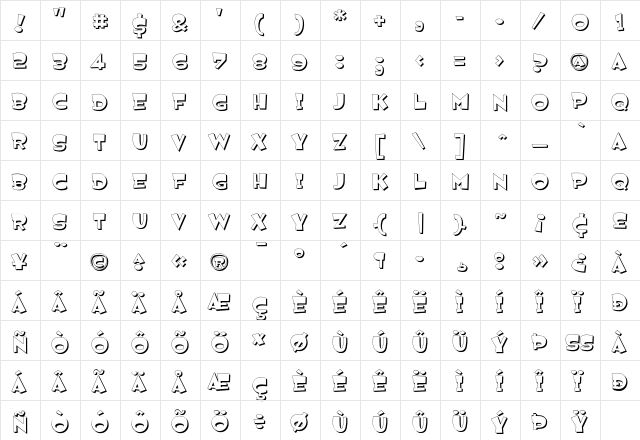
Jemima Regular
Design Context for Jemima Typeface
Jemima is a composed and adaptable typeface that performs quietly and consistently across a wide range of design contexts.